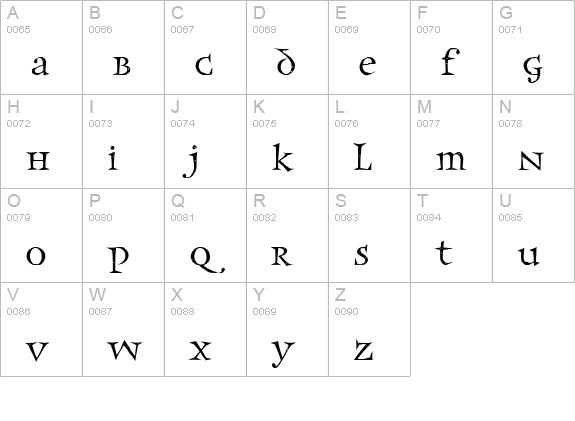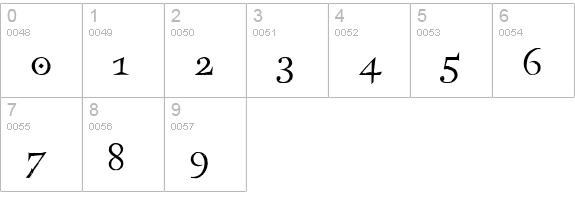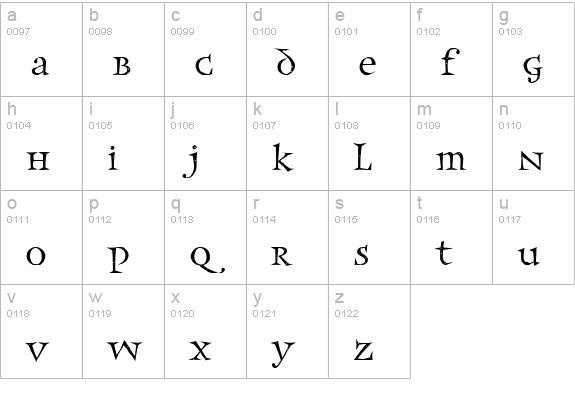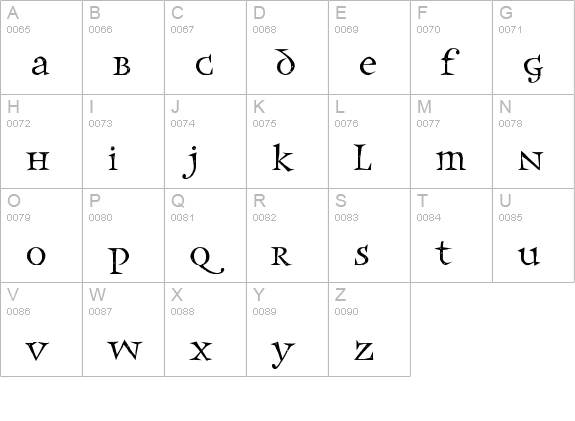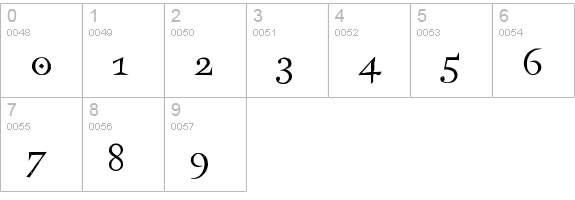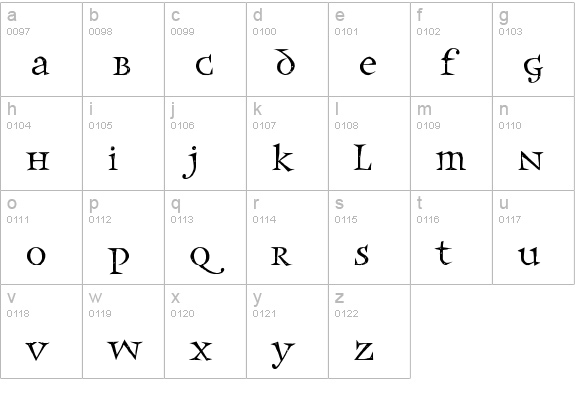
Frances Uncial Font Details
Frances Uncial font is a beautifully crafted typeface that exudes elegance and sophistication. With its distinct Celtic-inspired letterforms and graceful curves, this font is perfect for adding a touch of old-world charm to your designs. The timeless appeal of Frances Uncial makes it suitable for a wide range of projects, from invitations and greeting cards to branding and packaging. What sets Frances Uncial apart is not only its stunning aesthetics but also its versatility. Whether you're looking to create a vintage-inspired design or a more modern layout with a unique twist, this font has you covered. Its classic yet contemporary look makes it a go-to choice for designers looking to make a statement. And the best part? Frances Uncial is available for free download at FontsMarket.com. This means you can easily access this exceptional font and use it in your projects without any cost. So why wait? Add a touch of timeless elegance to your designs with Frances Uncial today!